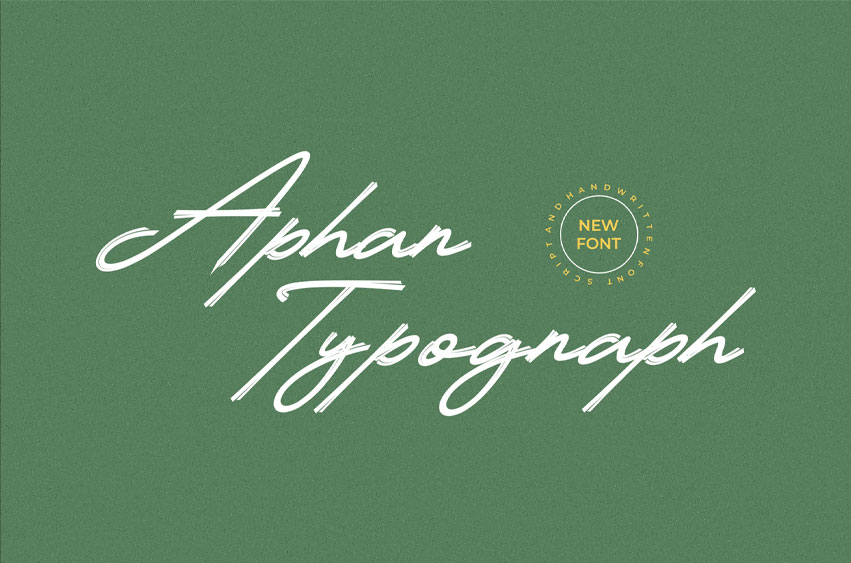
Aphan Typograph Font Is A Handwritten Font. It can Make It Easier To Convey The Message In Your Design. Font Is Suitable For Logos, Labels, Badges, Branding, Magazines, Posters, Titles, Gigs, Covers, etc. Our Fonts Have Uppercase & Lowercase, numerals & Punctuation, and Opentype Features.